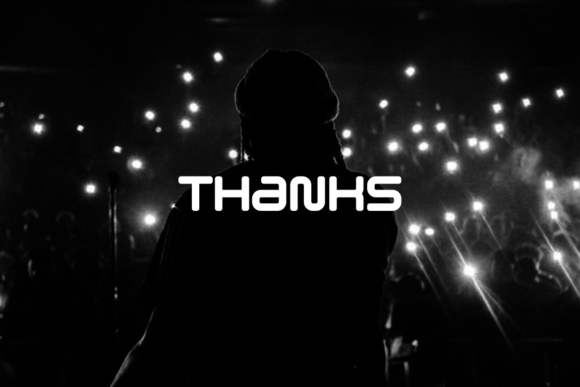
Introduction to Omongo Font Font
Fonts play a crucial role in design, and the Omongo Font font is a typeface that brings both character and versatility to any project. Whether you’re working on a branding project, a website, or a print design, the Omongo Font font offers a unique style that can elevate your work.
Omongo is a modern display font with bold, clean lines and a simple, stylish look.
Itβs perfect for making text stand out in posters, headlines, or logos The design is sleek and easy to read, giving a fresh and professional feel to any project.
Key Features of Omongo Font Font
Why Choose Omongo Font Font?
The Omongo Font font is more than just a typeface β it’s a design tool that helps you communicate your message with style and clarity. Its unique character set and versatile design make it suitable for a wide range of applications, from elegant invitations to bold headlines.
With its carefully crafted letterforms and balanced proportions, the Omongo Font font ensures readability and visual appeal across all mediums.
What makes Omongo Font font special?
The Omongo Font font stands out with its unique design, exceptional readability, and versatility across various design applications.